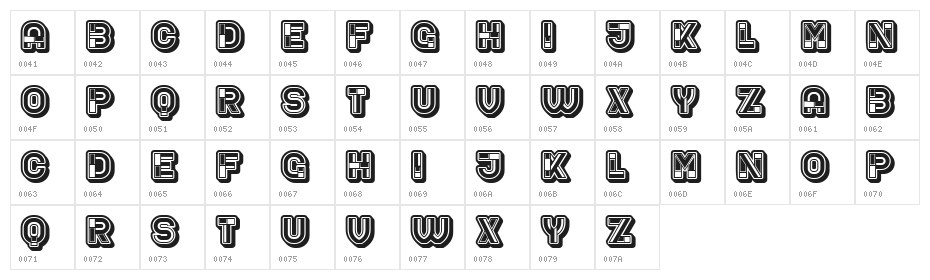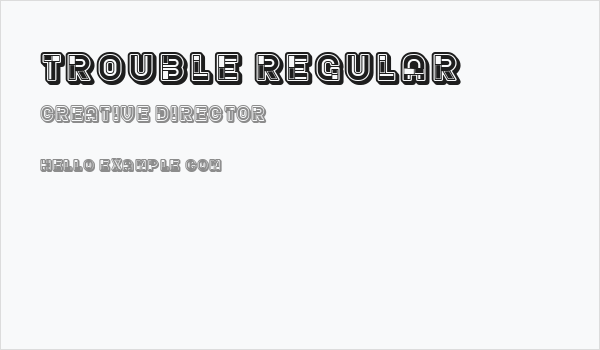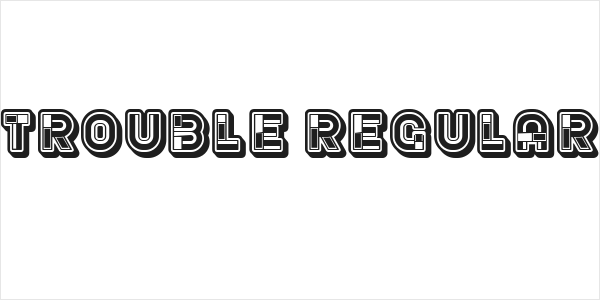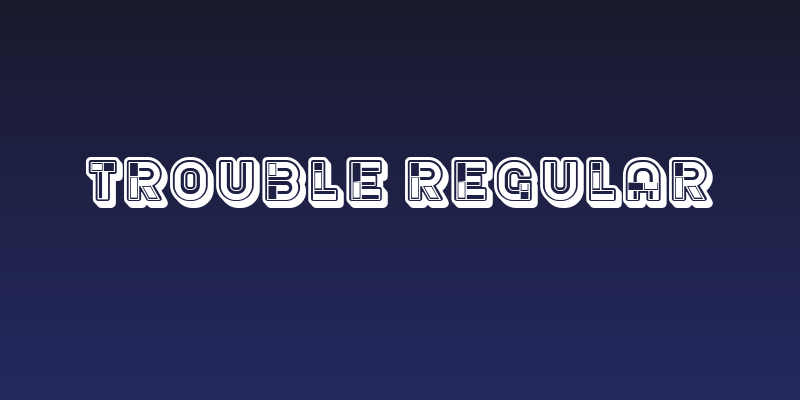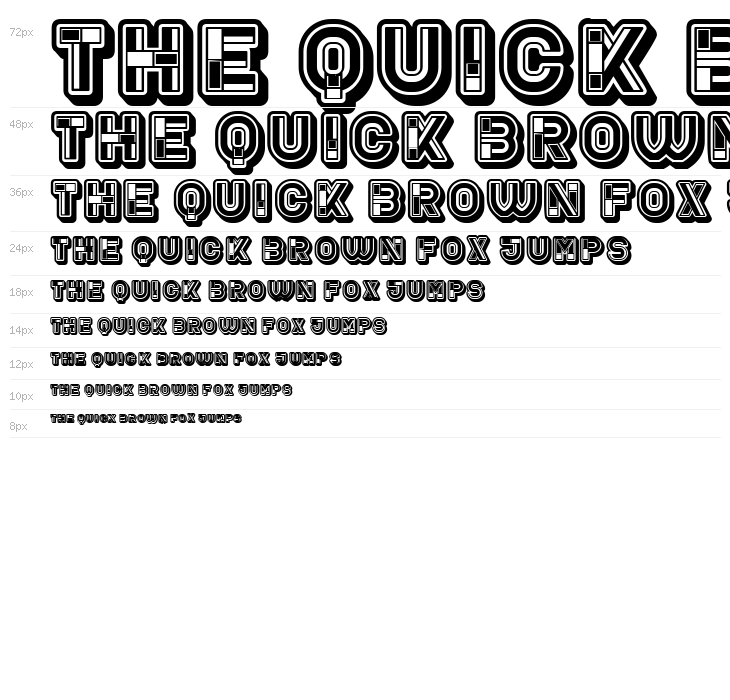
Trouble Regular Font
Trouble Regular Description
This font features a bold, decorative style with a layered, three-dimensional appearance. Each character is outlined with a thick black border, creating a striking contrast against the inner white space. The geometric shapes and clean lines give it a modern and playful feel, while the shadow effect adds depth and visual interest. The uppercase letters are uniform in height, and the overall design is consistent across the alphabet. This font is ideal for making a statement and grabbing attention, suitable for various creative applications.
| Proposed Projects | Ideal for posters, headlines, logos, and branding materials that require a bold and eye-catching typeface. |